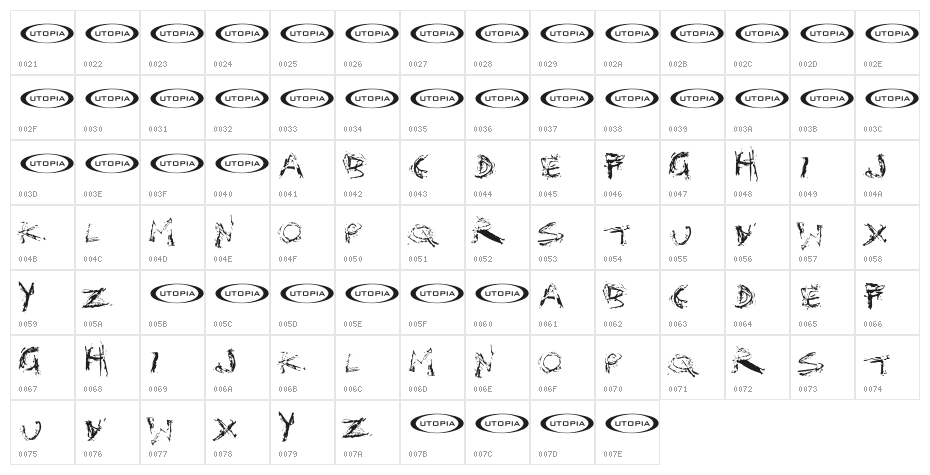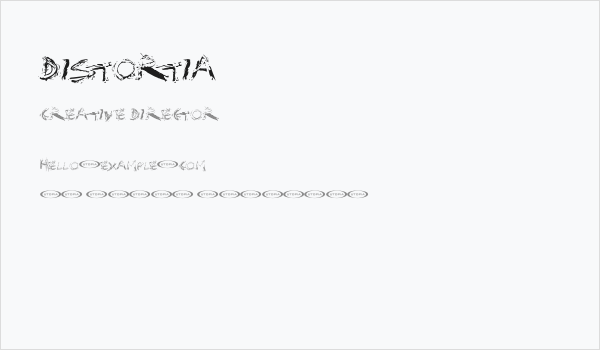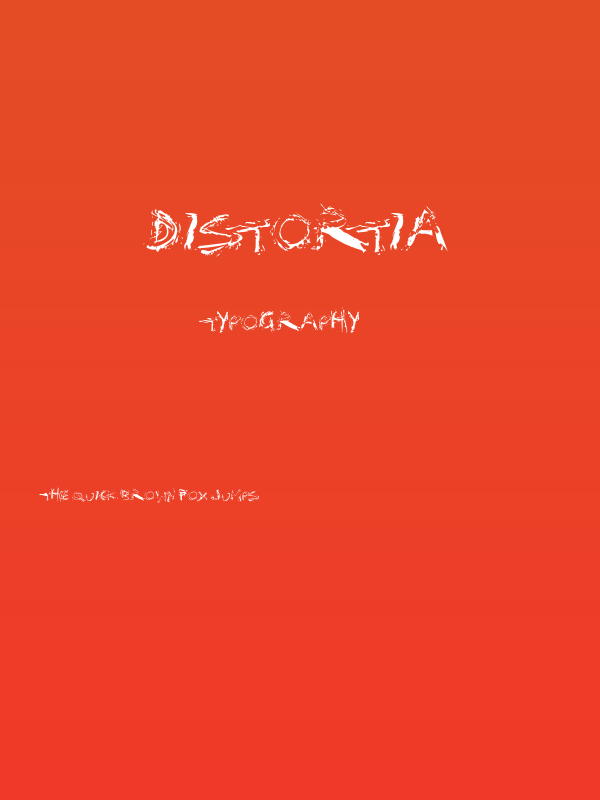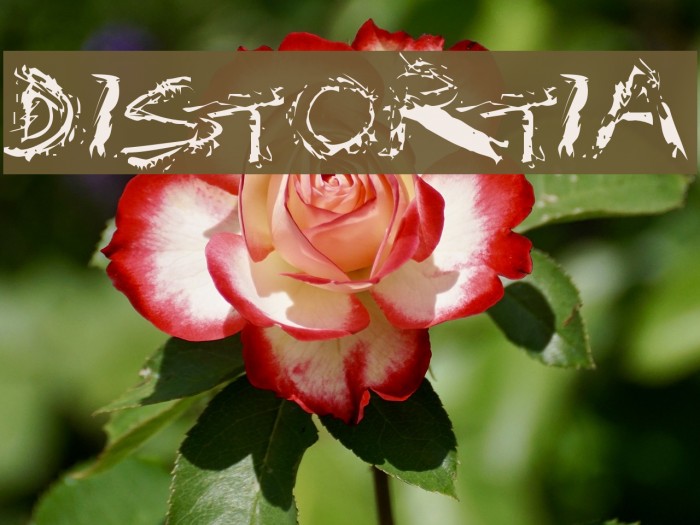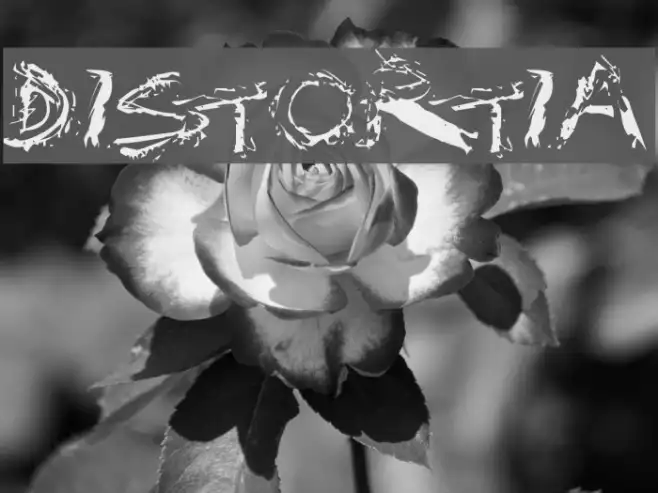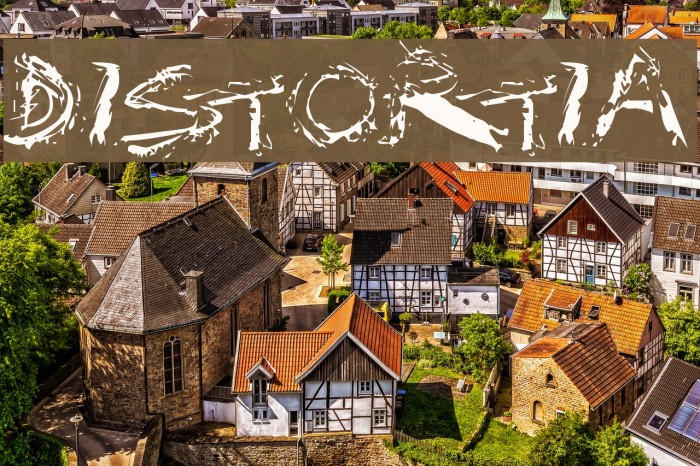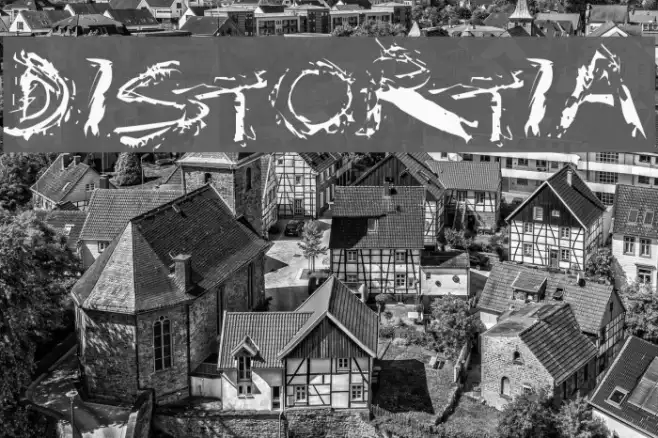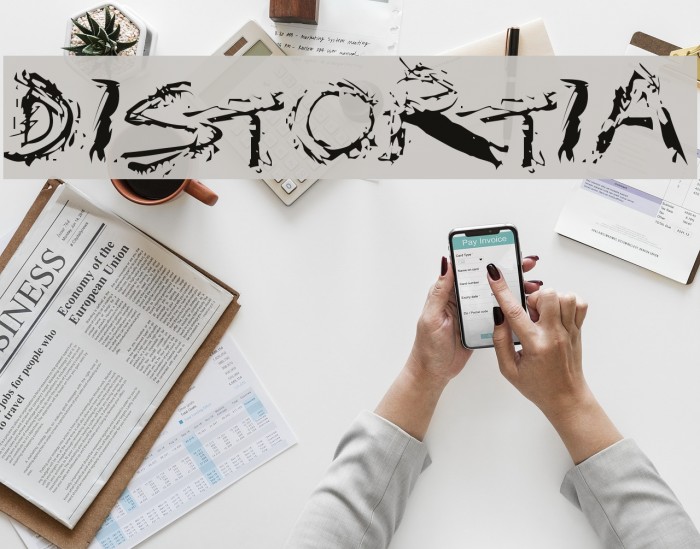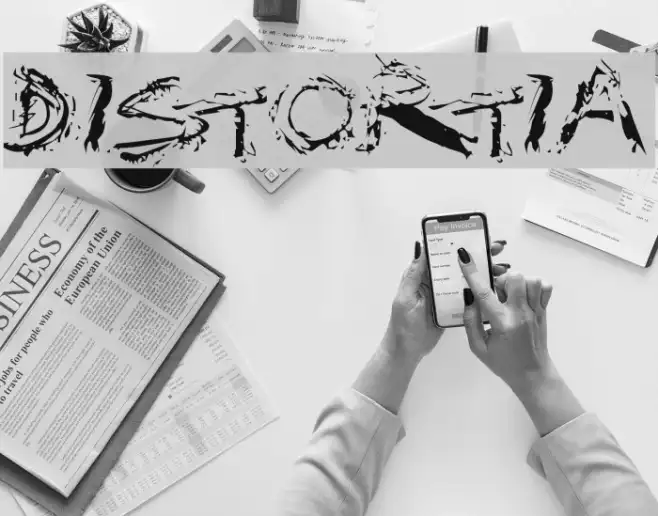
Distortia Font
Distortia Description
This font features a highly distressed and chaotic appearance, with jagged edges and irregular strokes that create a sense of movement and energy. The letters are bold and impactful, with a grunge aesthetic that suggests a rebellious or edgy tone. The uppercase and lowercase characters maintain this distressed style, providing a cohesive look throughout the alphabet. The font's unique style makes it stand out, perfect for projects that require a strong visual impact. The rough texture and uneven lines give it a hand-drawn feel, adding to its distinctive character.
| Overall Style | Grunge, Edgy, Distressed |
| Proposed Projects | Ideal for music album covers, edgy posters, streetwear branding, and rebellious-themed designs. |